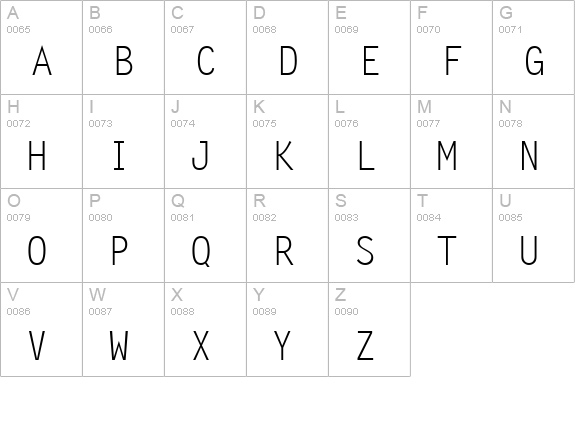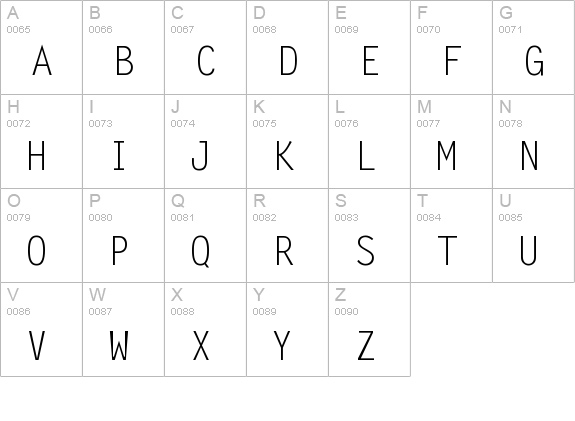
Monospaced Font Details
The Monospaced font is a classic and versatile typeface that is perfect for a wide range of design projects. With its clean lines and uniform spacing, this font is ideal for coding, programming, and any other text that requires precise alignment. The Monospaced font is free to download at FontsMarket.com, making it easily accessible for all designers and creators. Whether you're working on a website, logo, or print material, the Monospaced font is a reliable choice that will give your projects a professional and polished look. Download this timeless font today and elevate your designs with its timeless appeal.